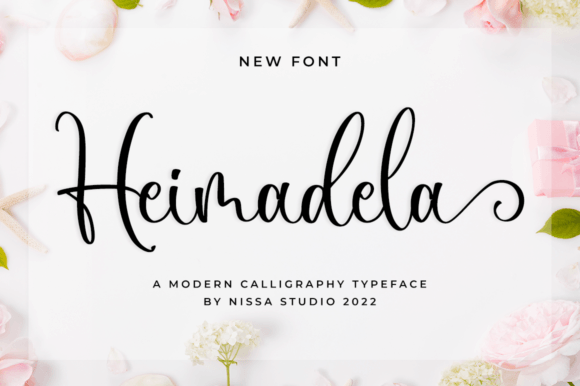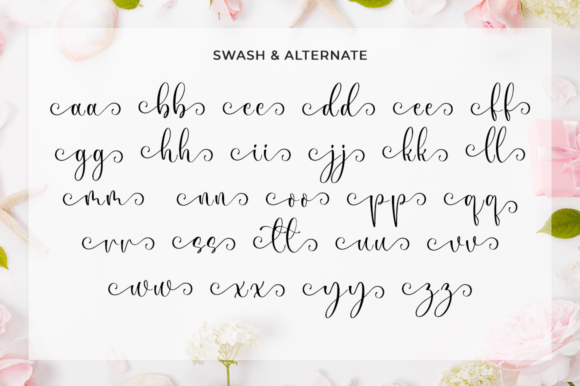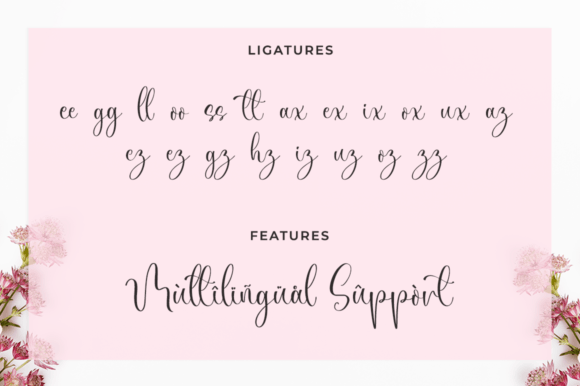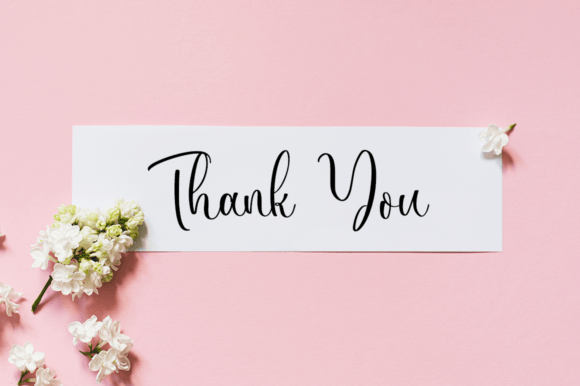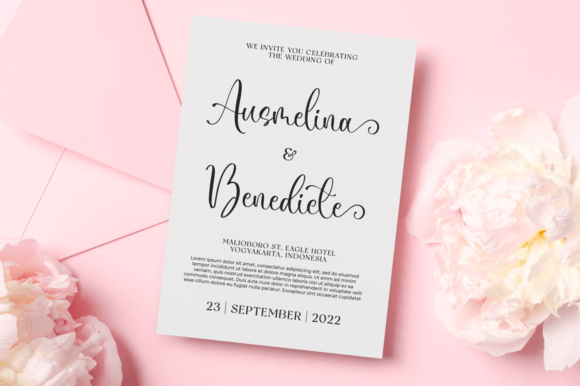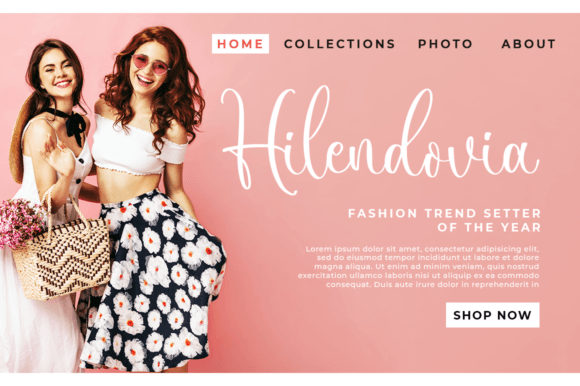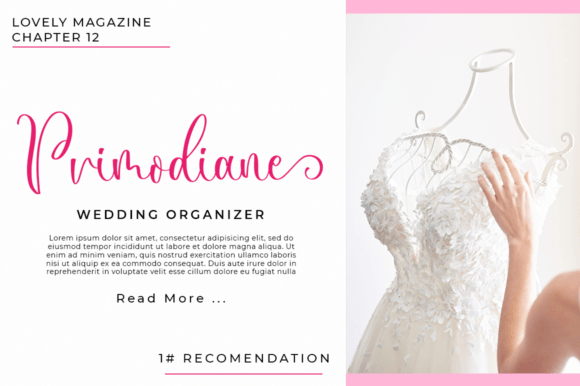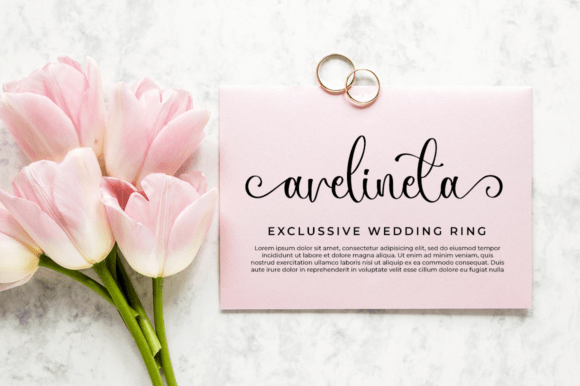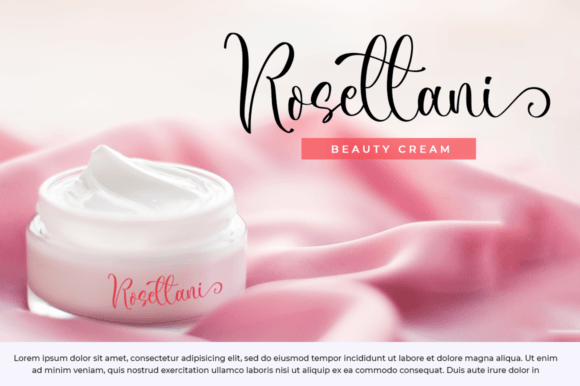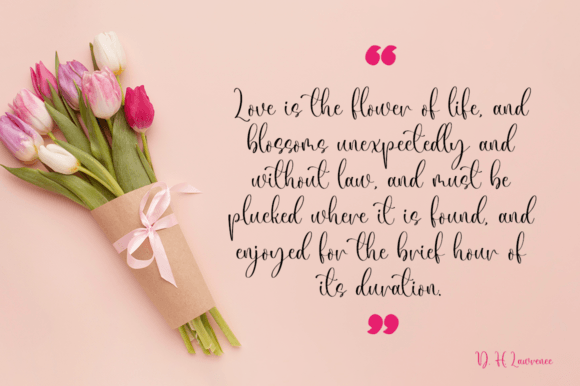
Heimadela Font
About Heimadela Font
**Heimadela Font: Elegant and Delicate Script Beauty**
The Heimadela font is a stunning and delicate script typeface that radiates elegance and class. With its refined and refreshing appearance, this font was meticulously crafted to bring a touch of beauty to your designs. Here’s how you can use the Heimadela font to elevate your creative projects:
1. **Invitations:** Design exquisite and sophisticated invitations for weddings, anniversaries, galas, and other formal events. The Heimadela font’s elegance sets the perfect tone for special occasions.
2. **Branding:** Create a timeless and luxurious brand identity with the Heimadela font. It’s well-suited for high-end businesses, boutique shops, and premium product packaging.
3. **Logo Design:** Craft memorable and elegant logos that leave a lasting impression. The Heimadela font’s graceful curves and swashes can add a touch of sophistication to your brand mark.
4. **Stationery:** Design personalized stationery, including letterheads, envelopes, and business cards, that exude professionalism and refinement.
5. **Product Packaging:** Use the Heimadela font for premium product labels and packaging, especially for items in the beauty, fashion, and gourmet industries.
6. **Typography Art:** Create stunning typographic art pieces, framed quotes, and inspirational posters. The font’s delicate swashes and glyphs add a unique touch to your artwork.
7. **Magazine Covers:** Design elegant and captivating magazine covers and editorial layouts that draw readers in with the font’s timeless beauty.
8. **Book Titles:** Use the Heimadela font for book titles, covers, and chapter headings in novels, poetry collections, and other literary works.
9. **Wedding Stationery:** Craft a cohesive and refined suite of wedding stationery, including save-the-date cards, programs, and thank-you notes, to complement your special day.
10. **Signage:** Create elegant and eye-catching signs for upscale boutiques, hotels, and restaurants. The font’s elegance enhances the overall ambiance.
11. **Digital Marketing:** Elevate your online presence with the Heimadela font in website headers, banners, and social media graphics. It adds a touch of sophistication to your digital branding.
12. **Labeling for Luxury Goods:** Apply the font to label high-end products such as perfumes, cosmetics, jewelry, and wines, enhancing their perceived value.
13. **Event Invitations:** Design refined invitations for corporate events, fundraisers, art exhibitions, and other formal gatherings where a touch of class is required.
14. **Photography Watermarks:** Add a subtle and stylish watermark to your photography portfolio to protect your work while maintaining a polished look.
15. **Monograms:** Create custom monograms for weddings, personal branding, and luxury items. The Heimadela font’s ornate swashes make for exquisite monogram designs.
The Heimadela font, with its PUA encoding for easy access to glyphs and swashes, is a versatile choice for projects that demand elegance, refinement, and a touch of timeless beauty. Its delicate script style adds an air of sophistication to your designs, making it a valuable asset in your creative endeavors.